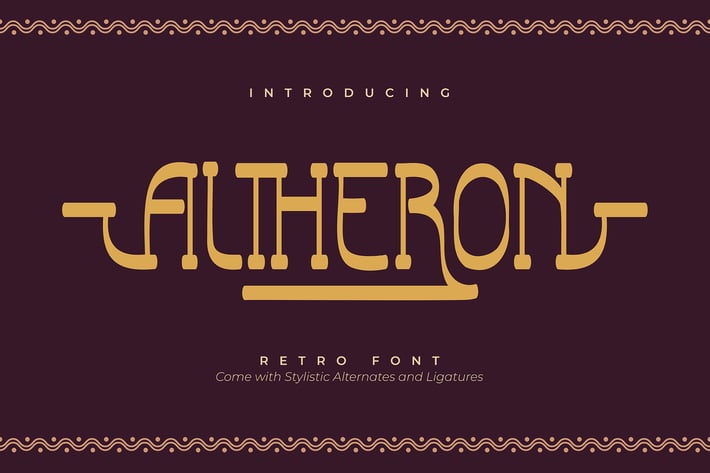
Altheron | Retro Serif Font
Altheron | Retro Serif Font with a calligraphy style, So beautiful on invitation like greeting cards, branding materials, business cards, quotes, posters, and more!